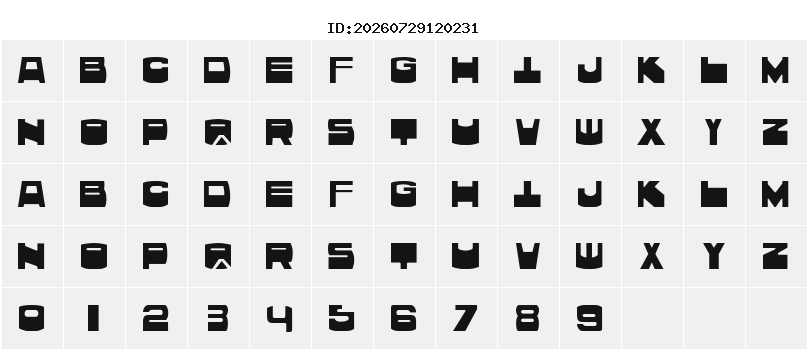
• Font Name: Kunst
• Full Font Name: Kunst
About Kunst.ttf
Kunst.ttf is a modern, elegant sans-serif font designed for ultimate readability and visual harmony. Perfect for branding, headlines, web design, and print materials.